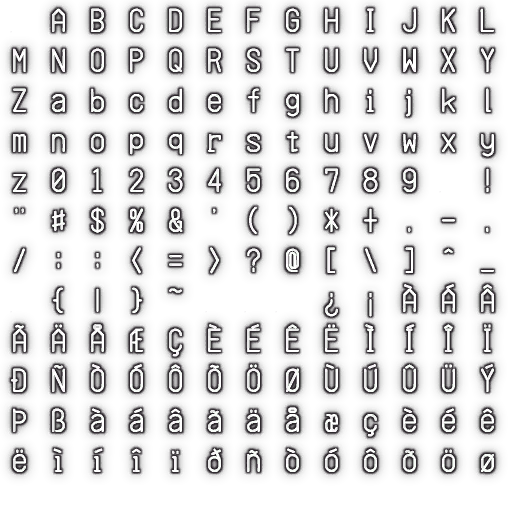
Metal Gear Solid 5 Font
Title Font In 2021 Resources Icon Metal Gear Title Font
Metal gear solid 5 font. The text generator section features simple tools that let you create graphics with fonts of different styles as well as various text effects; ^ all of the ingame fonts. Metal gear solid is a techno, various font designed by solid snakes game shrine.
To be distributed with the \metal gear\ font., created by steven snape, solid snakes game shrine 2002. If i'm not mistaken, basically a shitton of japanese games use rodin as a font (or its variations), mgs3 and nier automata also use it. If anyone knows anything or has found anything in the game's files about what the font.
Font meme is a fonts & typography resource. For such a cool, masculine game, they really mess up with the outlook of the subtitles. About the phantom pain font.
This is the font used in many aspects of the idroid and mgsv's ui overall, i'm looking to find out what it's called or if there is a font out there similar to it. Font based on certain hud elements from the game metal gear rising, namely score numbers and nametags for codec calls. Metal gear rex (font used in the original mgs1, special missions and ghost babel logos)
But what’s interesting here is that metal gear solid: Version 1.00 january 10, 2018, initial release. The metal gear solid v font please.
What font is used for metal gear solid v: Set in 1984, the game follows the mercenary leader punished “venom” snake as he ventures into afghanistan and the angola—zaire border. What's with the weird font for subtitles.
Like the typefaces you see in the metal gear solid games?well now, courtesy of theburntbreadman, you can type in the metal gear solid fonts yourself on your own computer.below is a list of available fonts and an example of what they look like! The image corresponding to your language is loaded at all times, and when a character is called for by the subtitles file, it's position in the image is defined in the font's xml file as so; Metal gear solid font is a techno, various font designed by solid snakes game shrine.
I) a font mimicking the font used in the logo for metal gear solid created by steve snape (manager of solid snake's game shrine) ii) a font mimicking the tactical espionage action text above the metal gear solid logo, and the solid in the bar below the metal gear created by steve snape (manager of solid snake's game shrine) iii) a font. Is anyone able to identify the font used for metal gear solid v: It was released worldwide for microsoft windows, playstation 3, playstation 4, xbox 360, and xbox one on september 1, 2015.
This is the idroid font. Mar 22, 2014 at 21:13. Integral uses fonts to distinguish between two separate worlds.